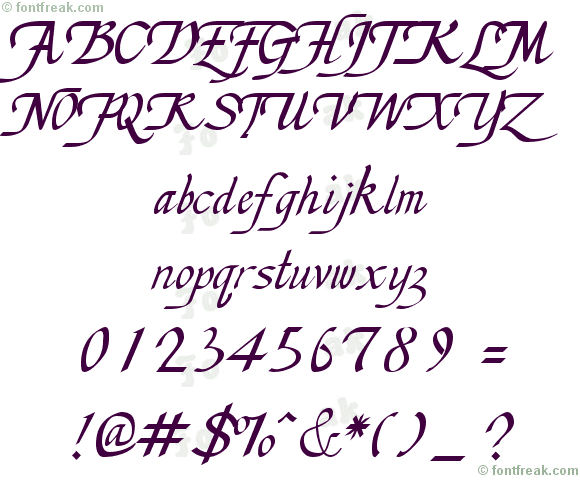
Chancellerie Moderne Demo
Chancellerie Moderne Demo, designed by Michel Bujardet, is a captivating serif font that beautifully blends elegance and modernity. With its distinctive calligraphic style, this font features a graceful stroke weight and smooth curves that create a sense of sophistication. The contrast between thick and thin lines adds a dynamic quality, enhancing its overall visual appeal. Spacing is carefully considered, ensuring legibility while maintaining a stylish flow. The decorative elements, such as the sweeping ascenders and unique ligatures, contribute to its artistic charm, making it a standout choice for various design applications.
This font is particularly well-suited for wedding invitations, where its elegant style can evoke romance and celebration. Additionally, it shines in movie posters, giving a classic yet contemporary look that grabs attention. Restaurant menus can benefit from its refined aesthetic, enhancing the dining experience with a touch of class. Graphic designers looking to create upscale branding materials will find Chancellerie Moderne Demo an excellent choice, providing a unique voice for logos and promotional content. Small business owners and content creators can also leverage this font to elevate their projects, making it versatile across different platforms.